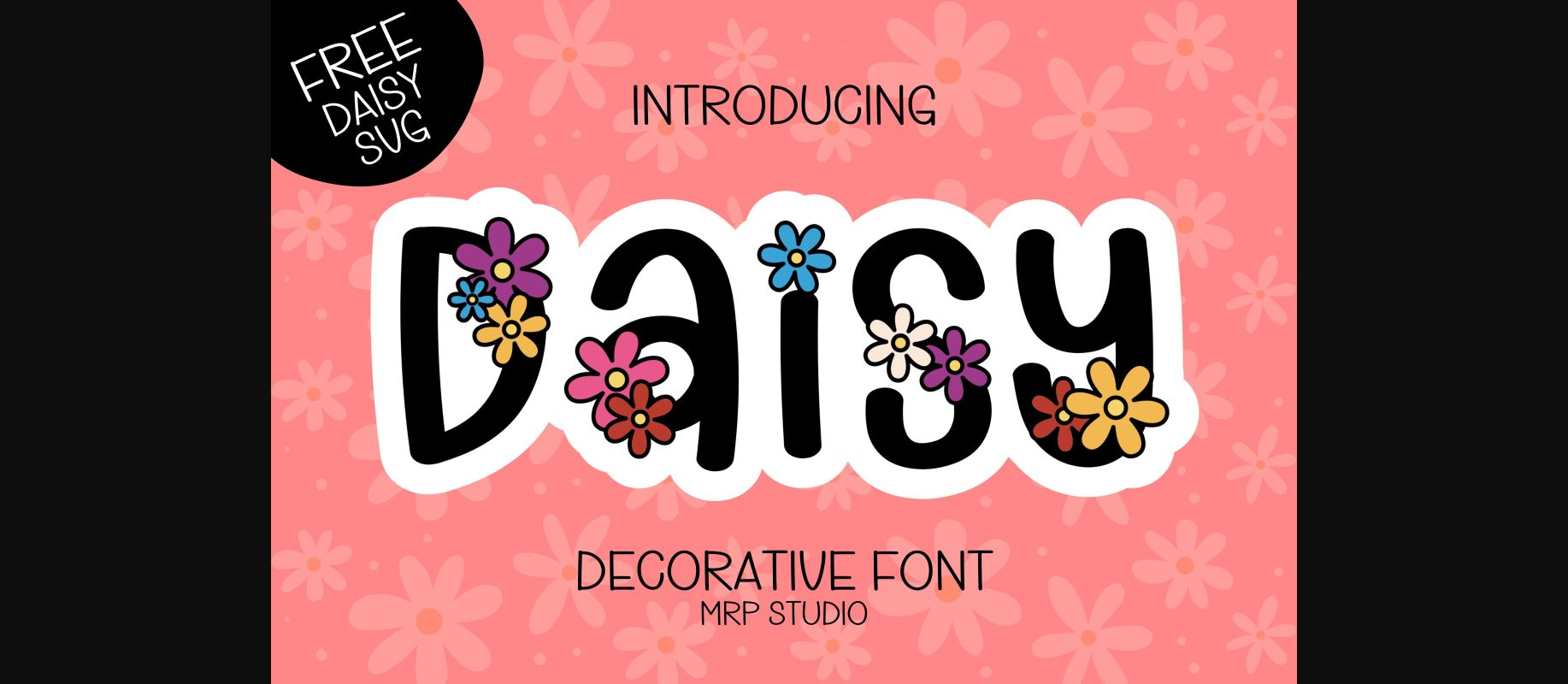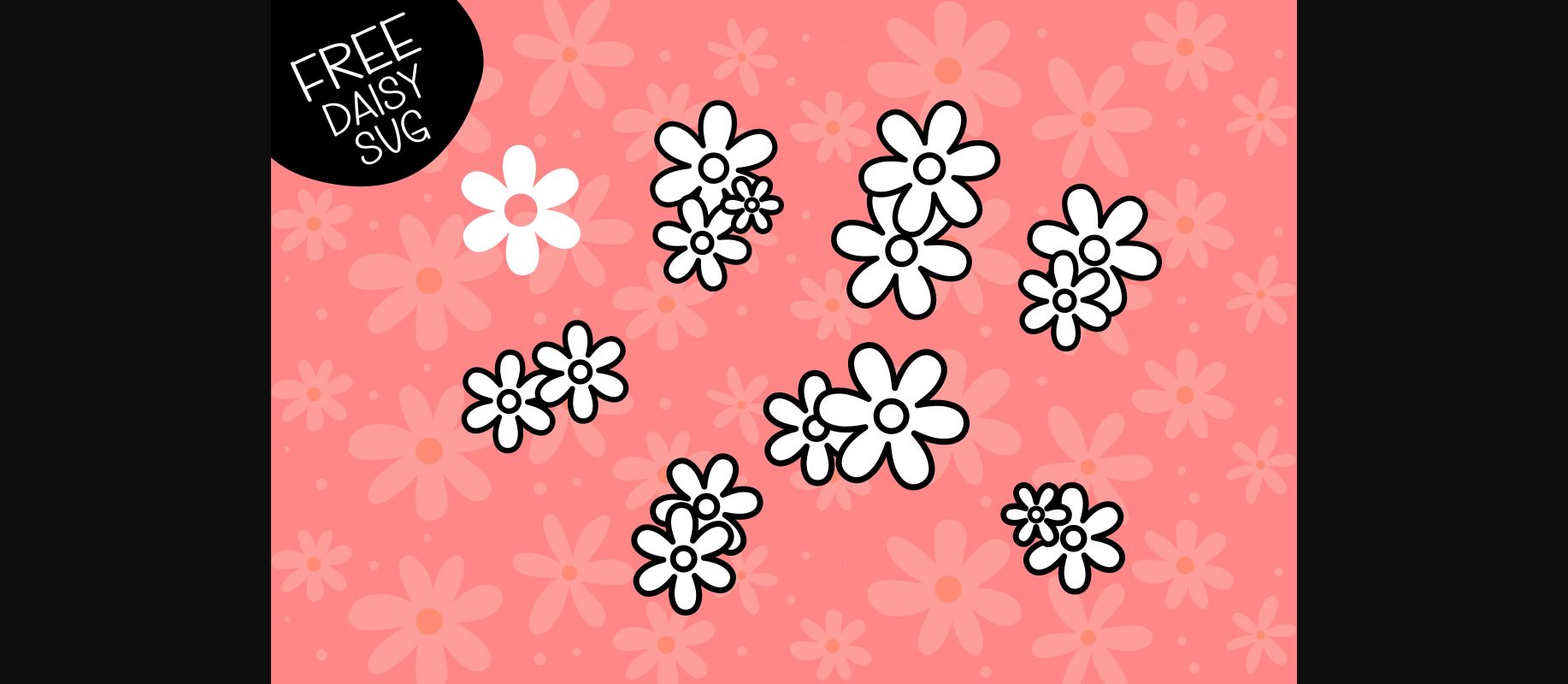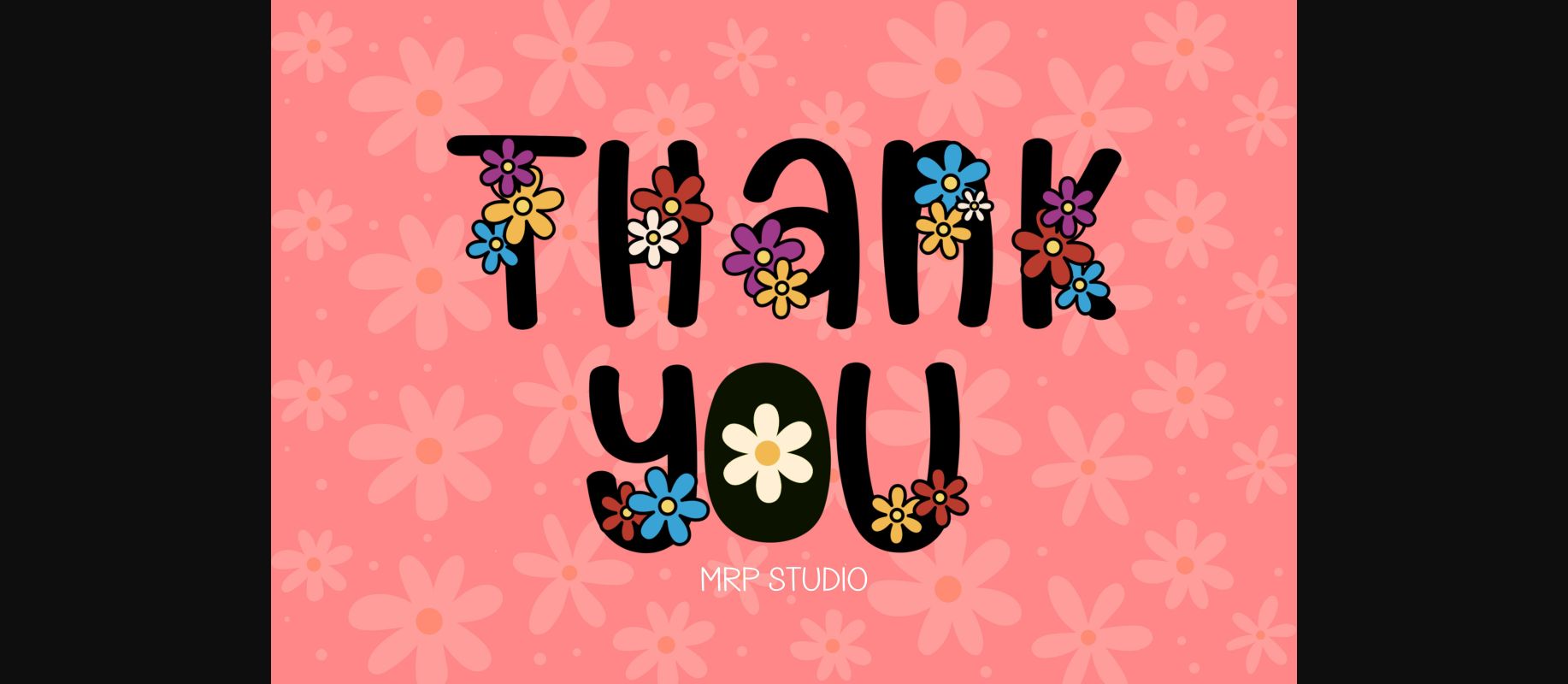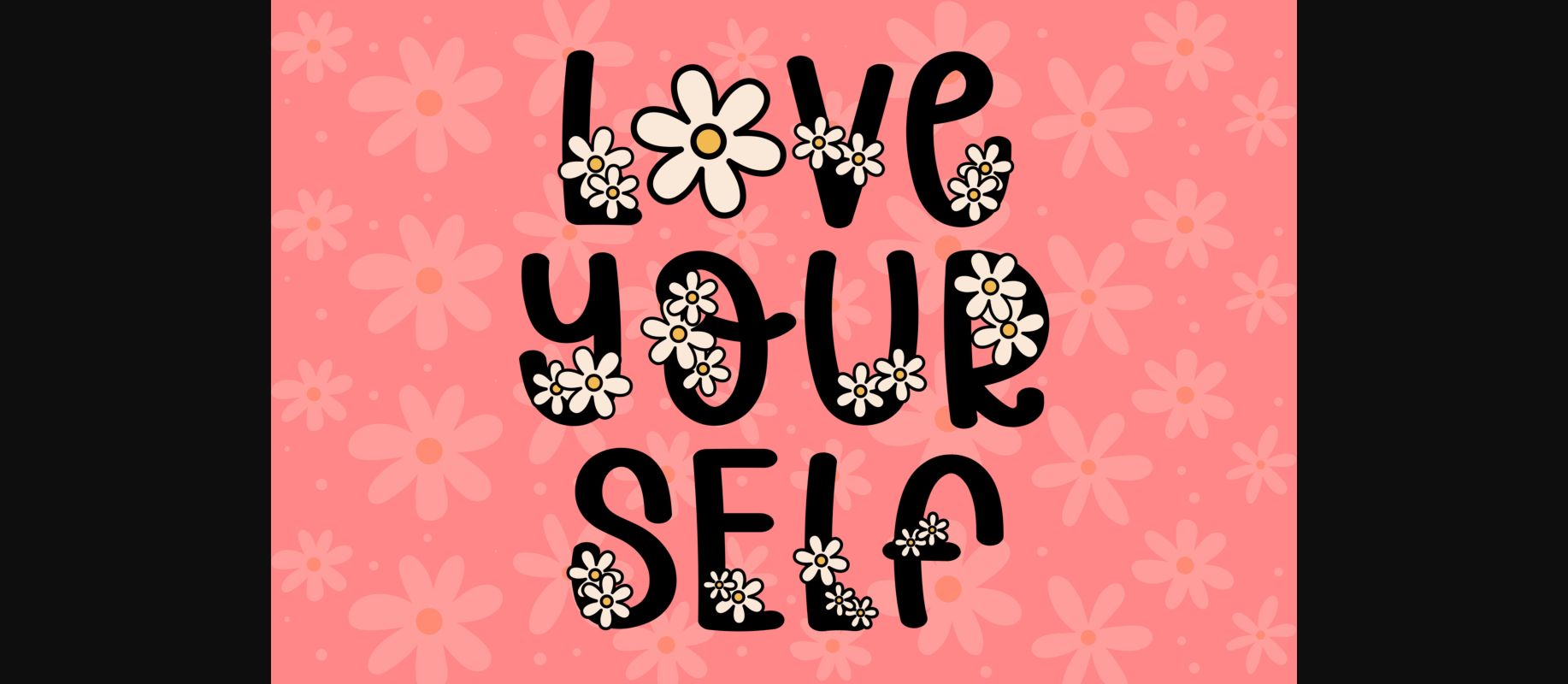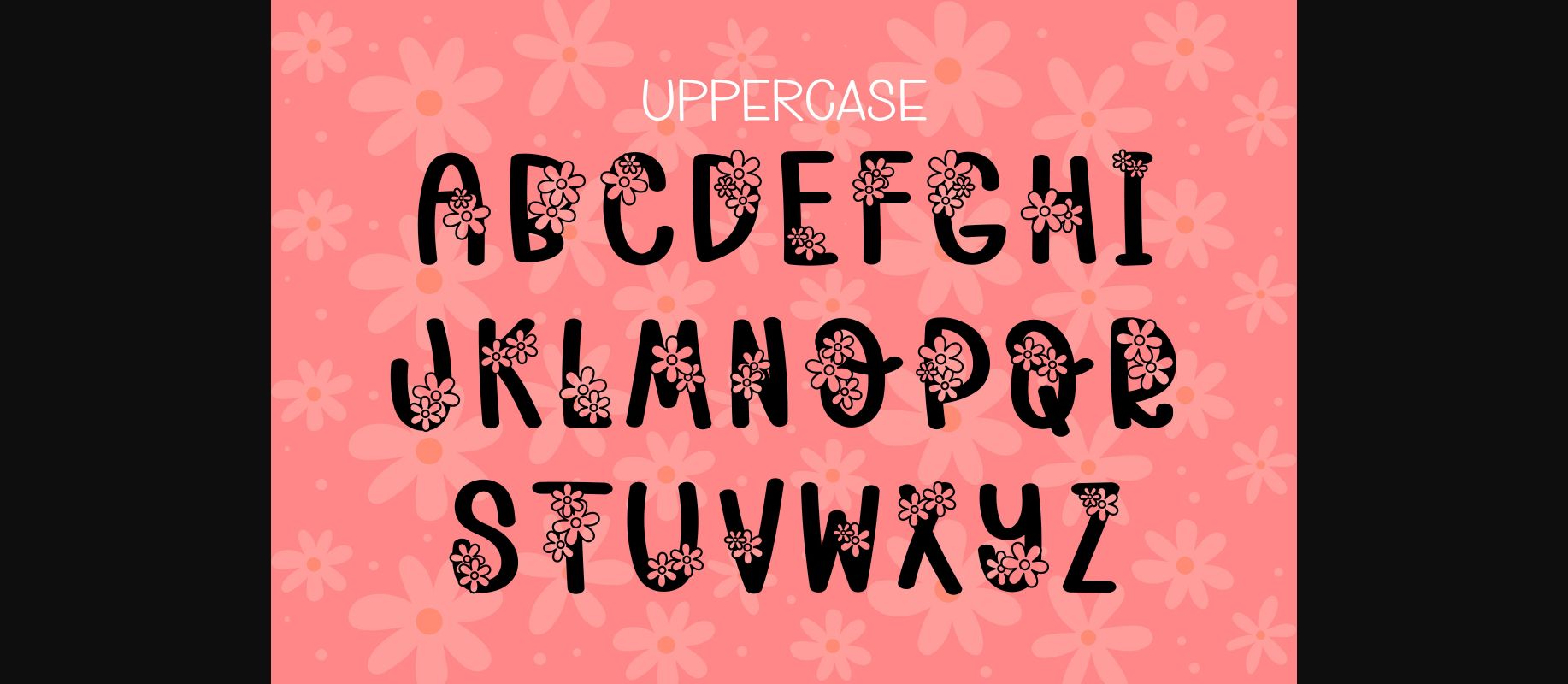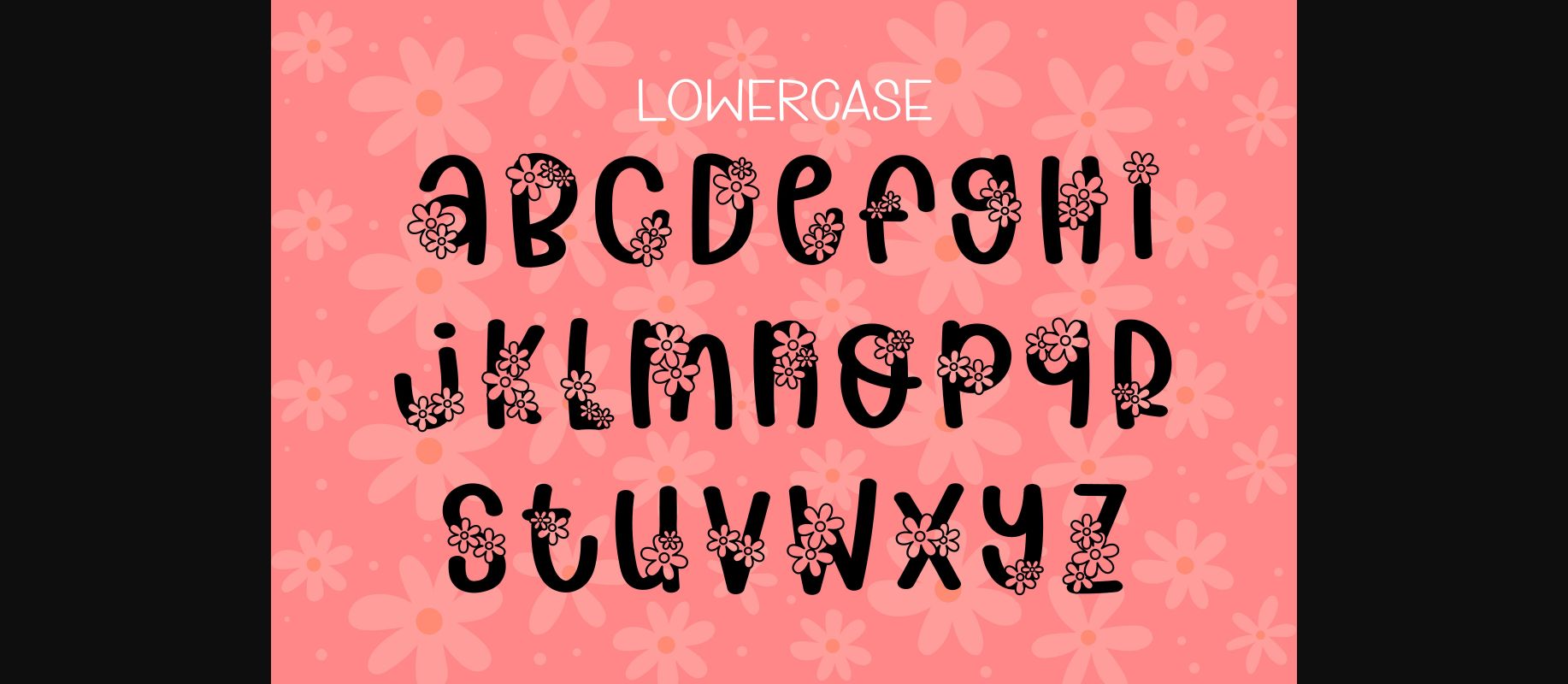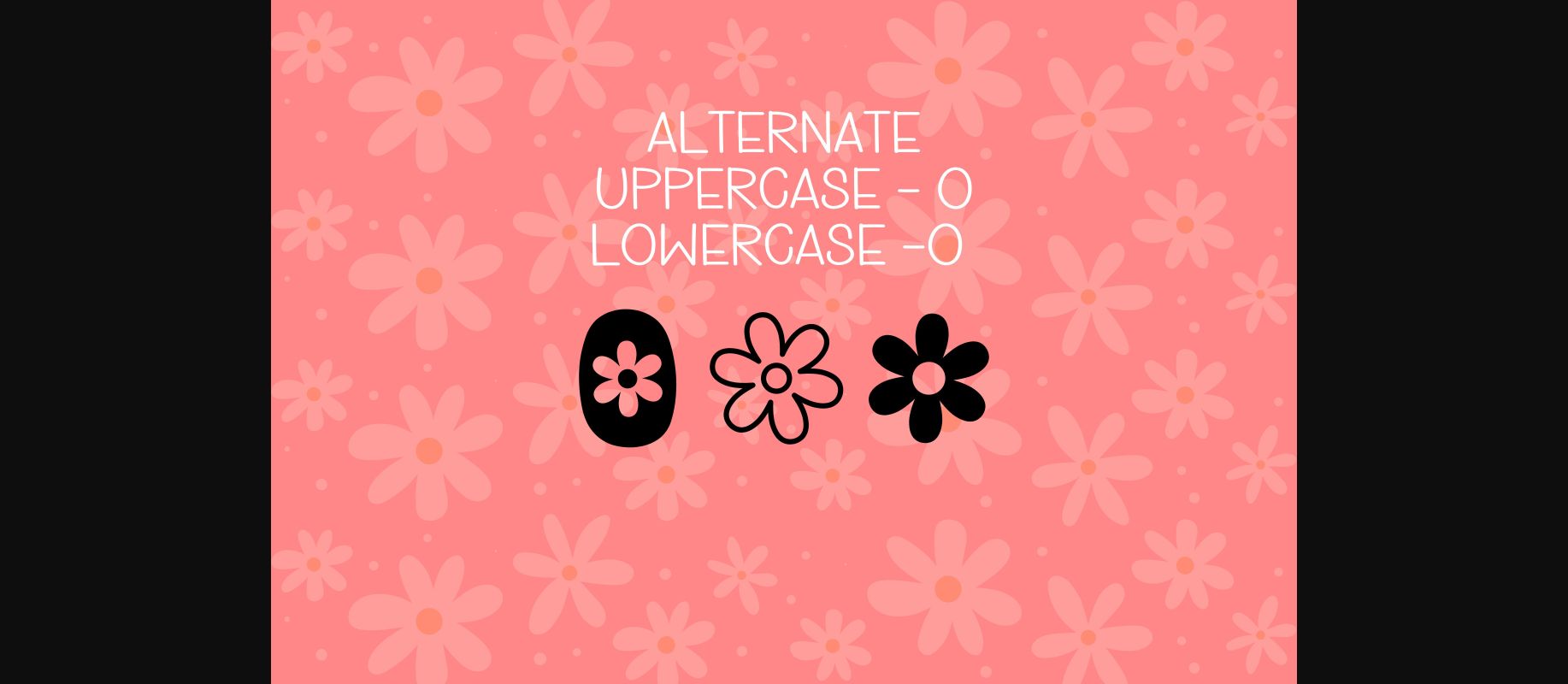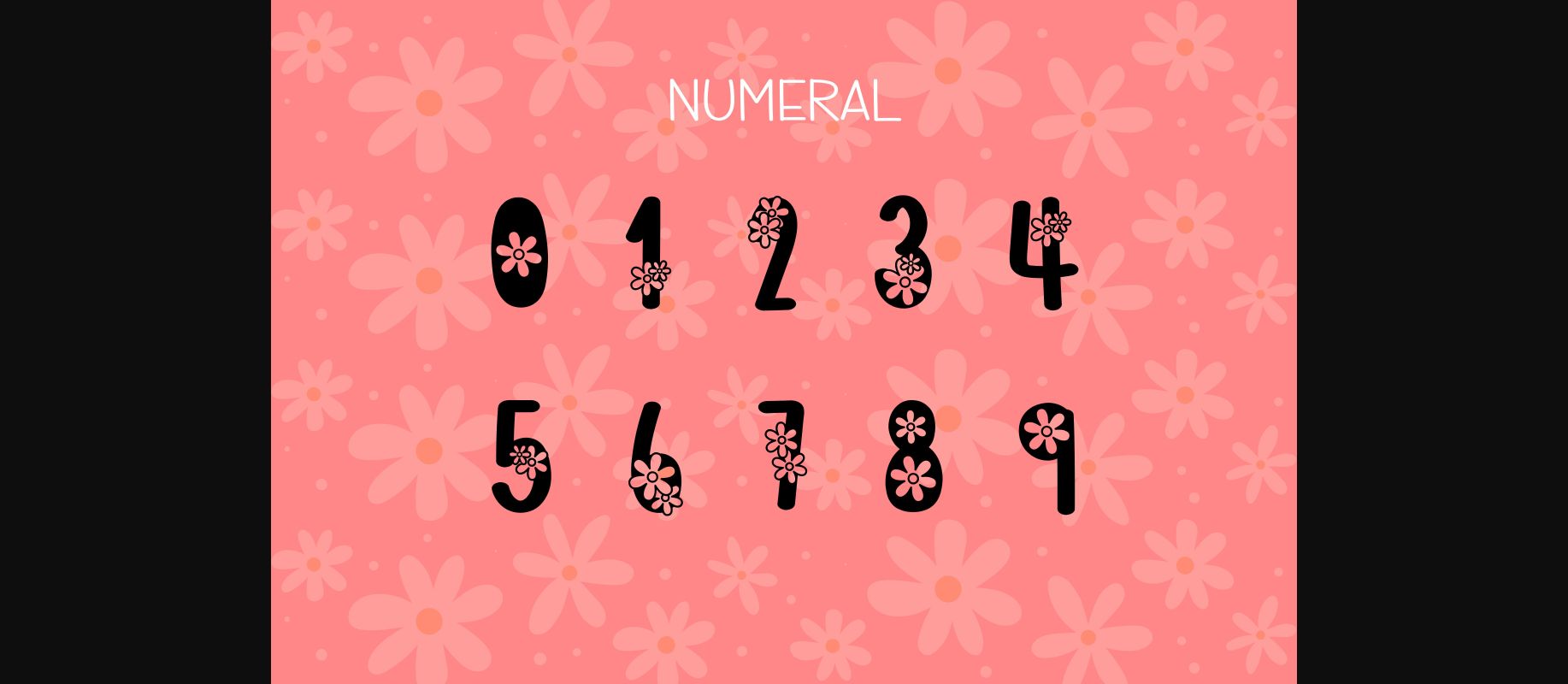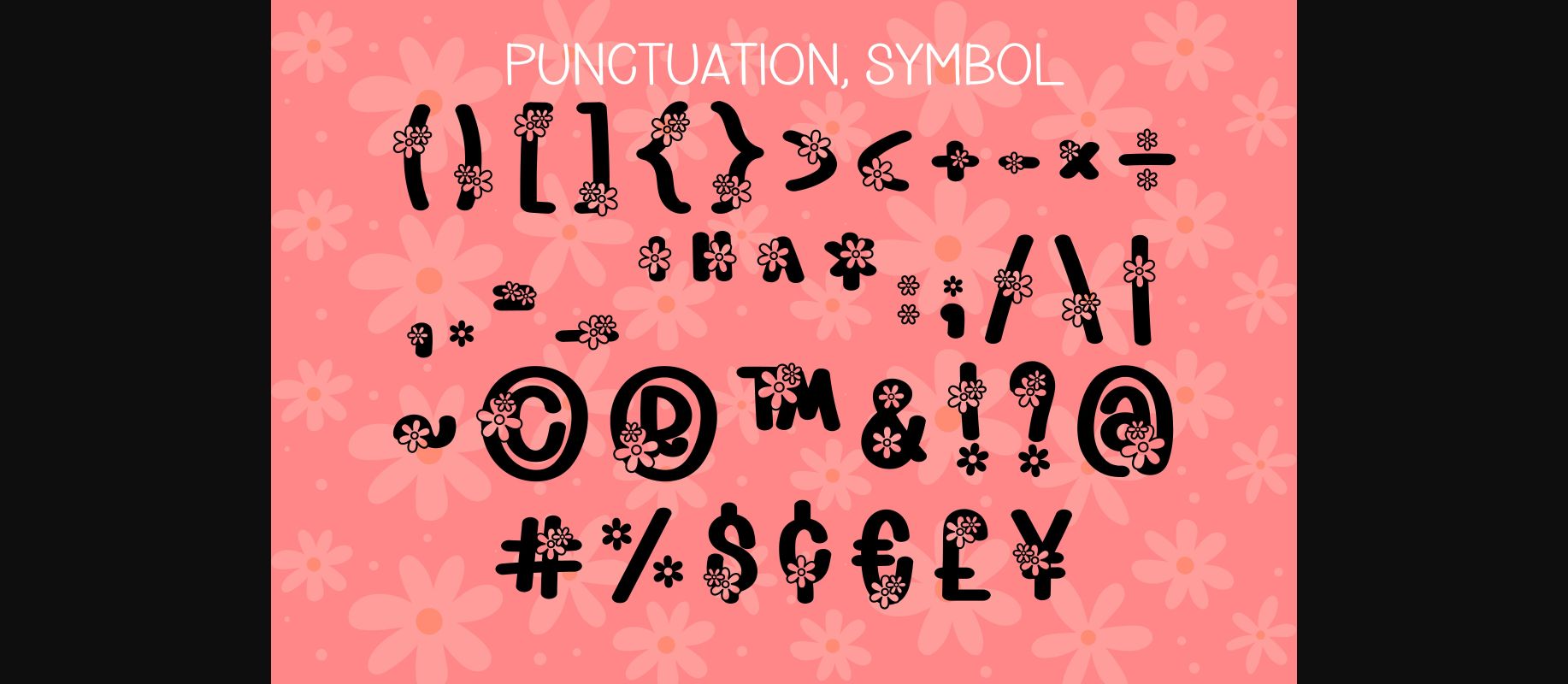
Daisy Font
About Daisy Font
Daisy is a lovely and cute decorative font that is sure to bring a touch of whimsy to any project. Each character is adorned with delicate, hand-drawn flowers that add a playful and romantic feel. Perfect for invitations, greeting cards, and any project that needs a touch of charm.